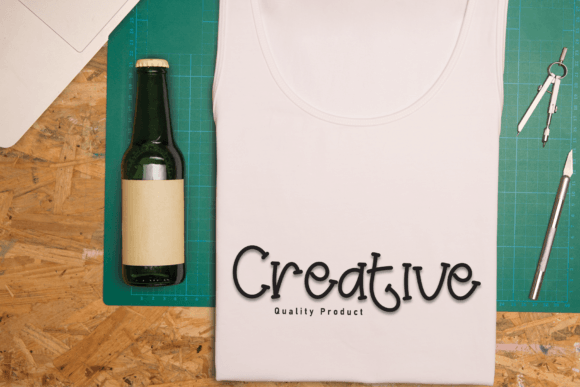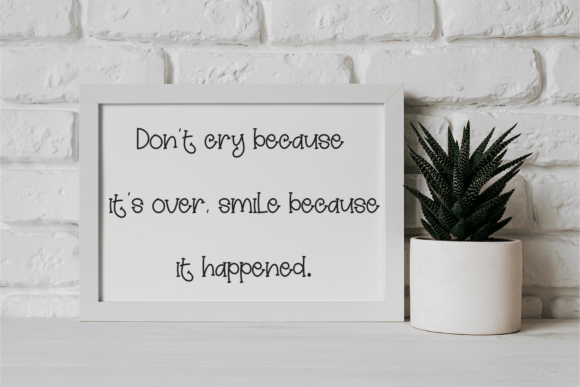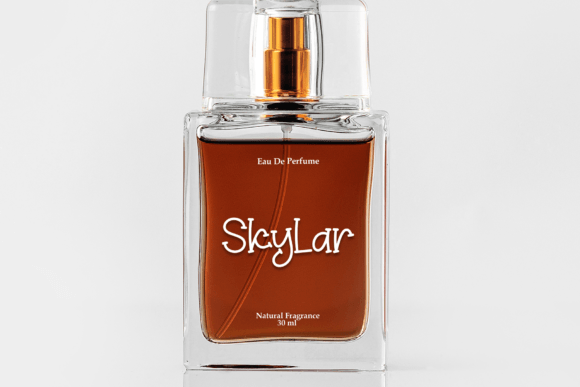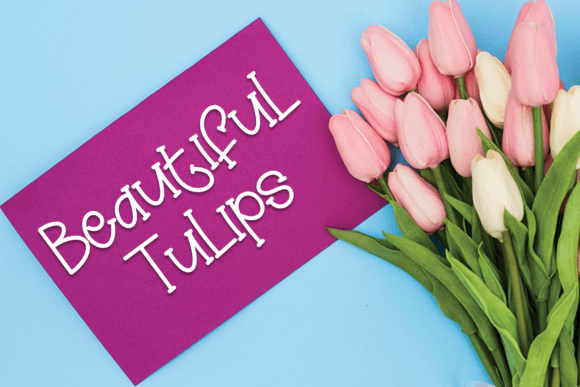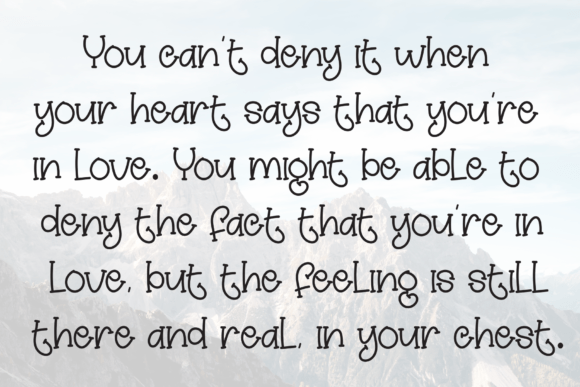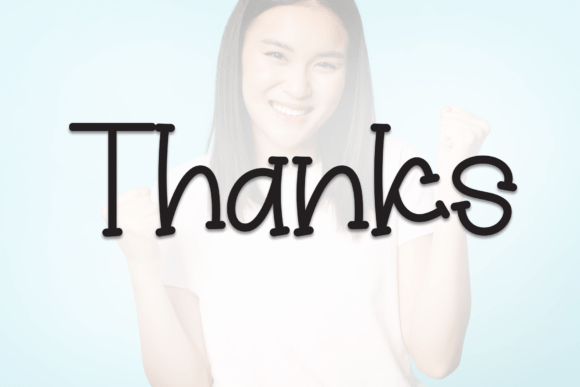
Introduction to Smile Happy Font
Smile Happy is a stylish and incredibly elegant script font.
Key Features of Smile Happy Font
Why Choose Smile Happy Font?
Smile Happy Font offers exceptional quality and versatility, making it a valuable addition to your design toolkit. Whether you’re creating for personal projects or commercial use, Smile Happy Font delivers professional results.